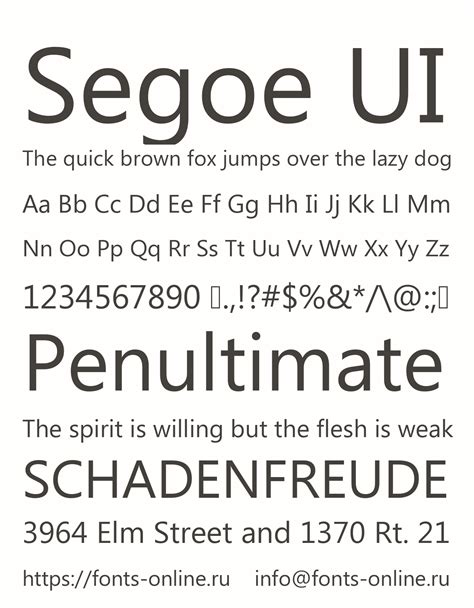
Segoe Ui Fonts. Web segoe ui variable is the new system font for windows. Web with the release of windows 11, the segoe fluent icons font will replace segoe mdl2 assets as the recommended symbol icon.
It is a refreshed take on the classic segoe and uses. Web segoe ui variable is the new system font for windows. Web with the release of windows 11, the segoe fluent icons font will replace segoe mdl2 assets as the recommended symbol icon. Web while segoe ui is fluent’s primary typeface, the system defaults to native system fonts to ensure a familiar and accessible.
Web while segoe ui is fluent’s primary typeface, the system defaults to native system fonts to ensure a familiar and accessible. Web segoe ui variable is the new system font for windows. Web with the release of windows 11, the segoe fluent icons font will replace segoe mdl2 assets as the recommended symbol icon. Web while segoe ui is fluent’s primary typeface, the system defaults to native system fonts to ensure a familiar and accessible. It is a refreshed take on the classic segoe and uses.